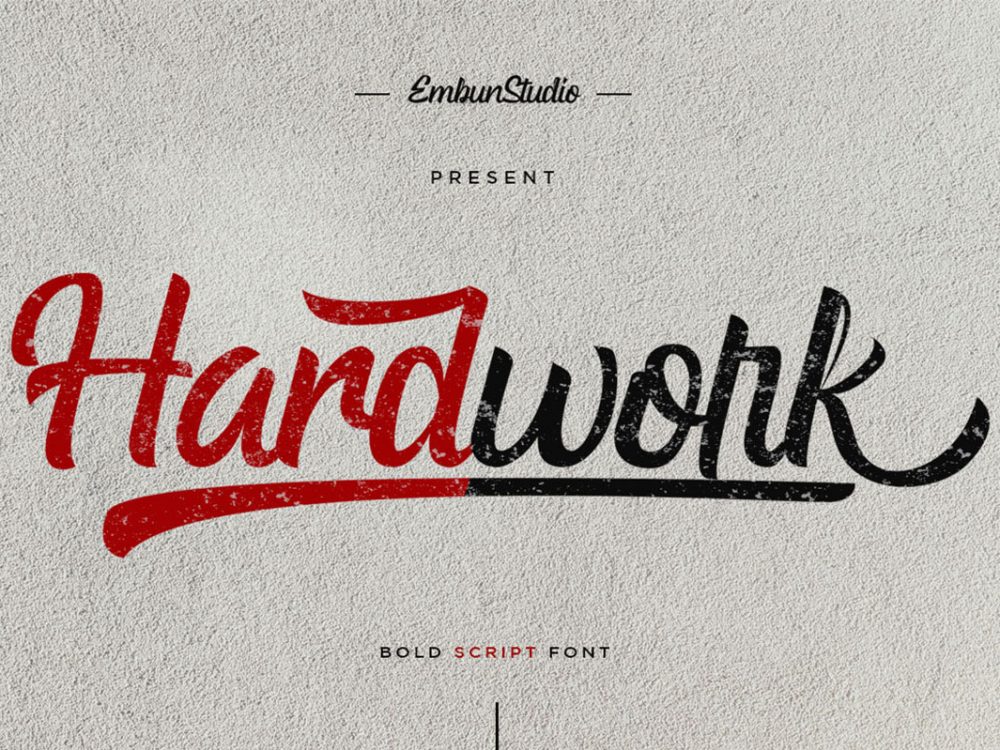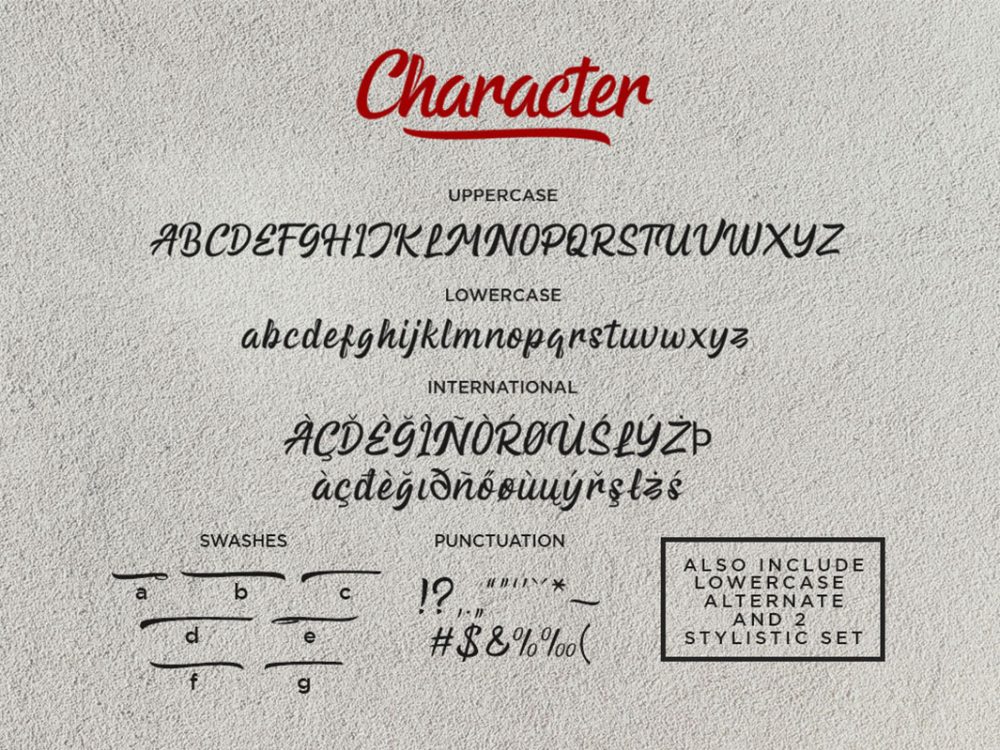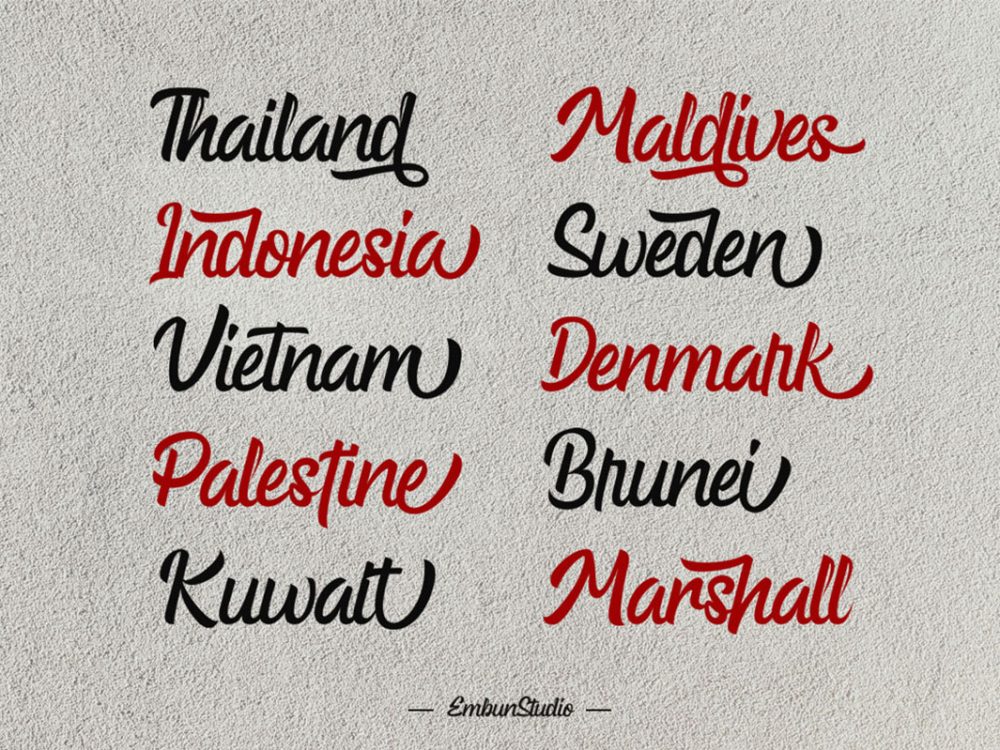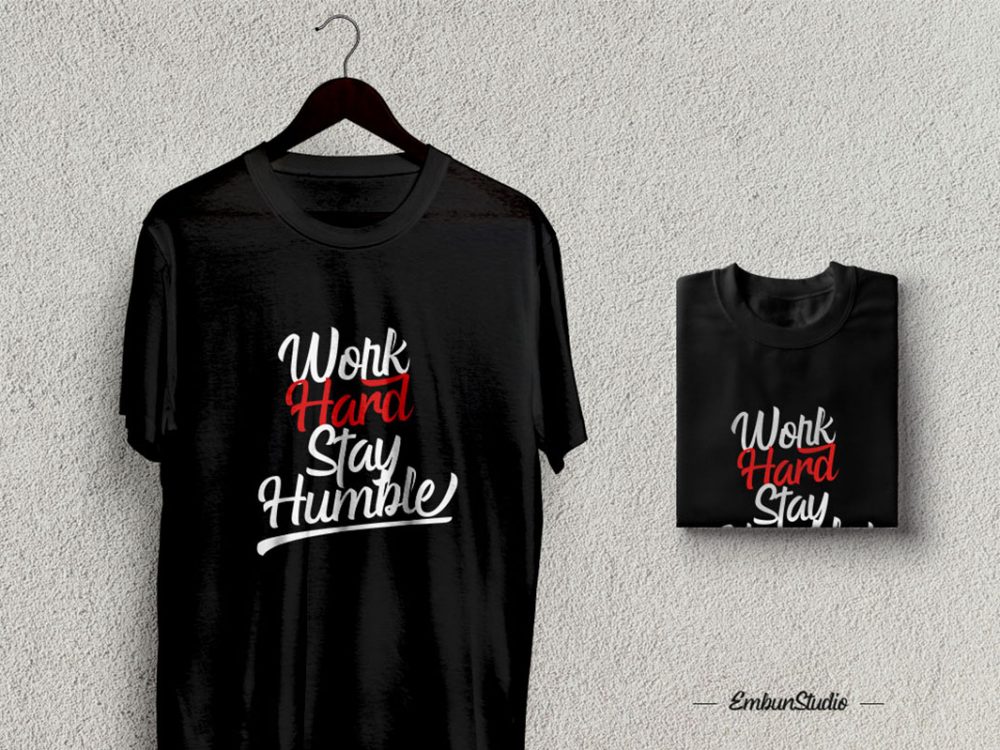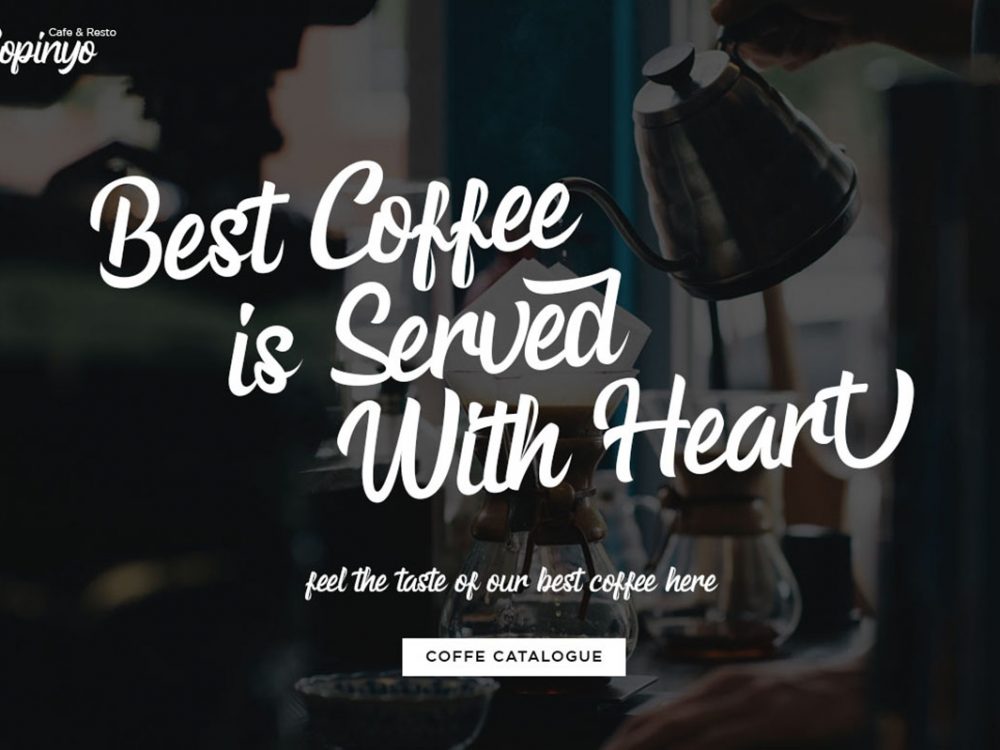
Hardwork Bold Script Free Font
Hardwork Bold Script Free Font is a modern elegant neat handwritten font that will help you create unique and memorable designs. These can be posters, invitations, cards, flyers, prints, and more. Level up your professional winter with Hardwork Bold Script Free Font.